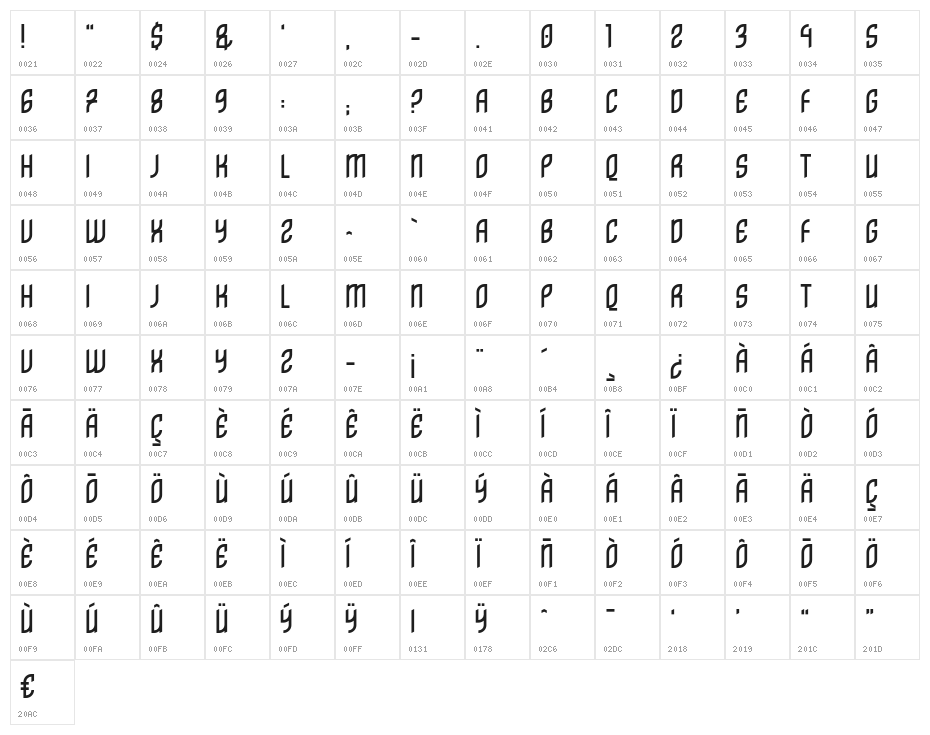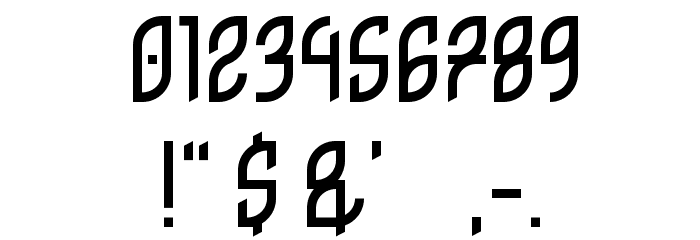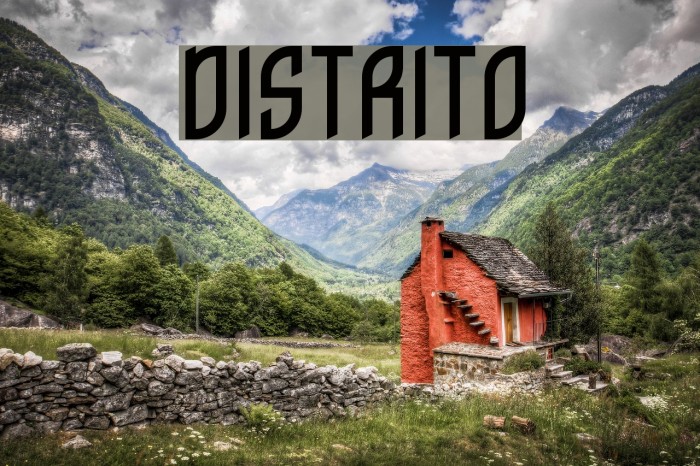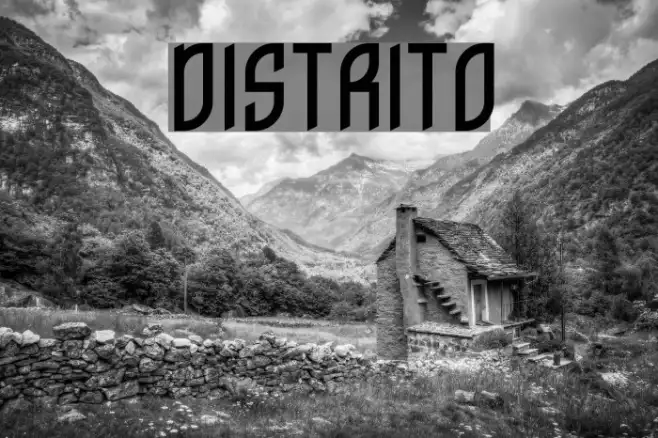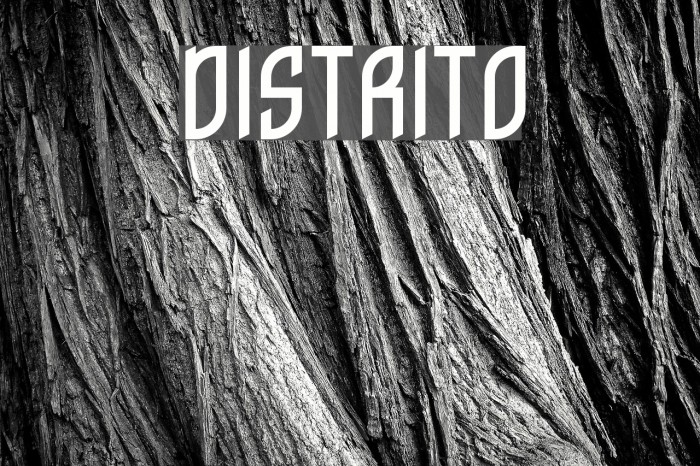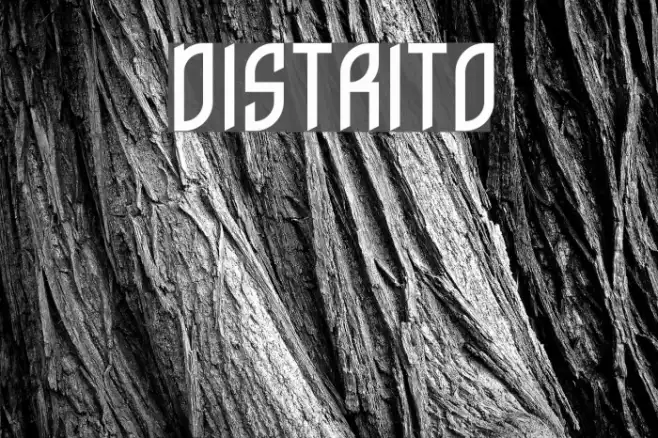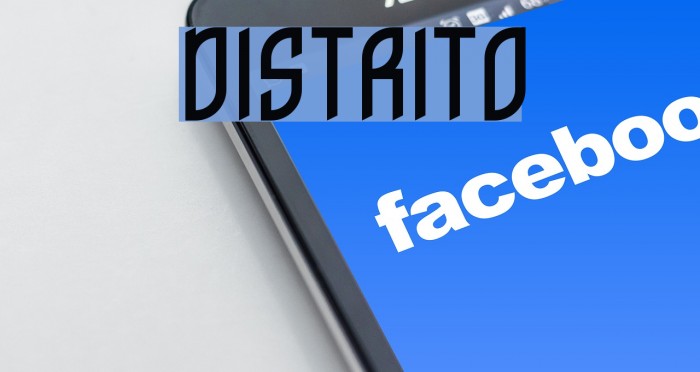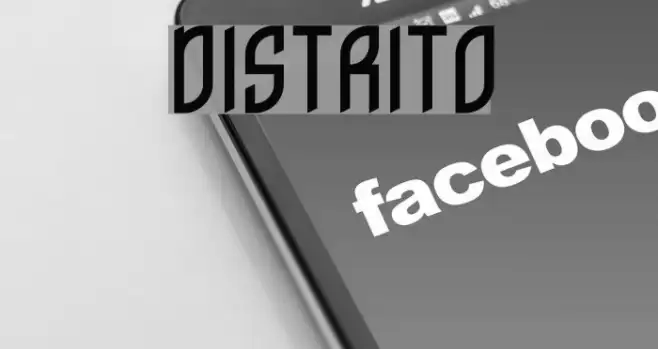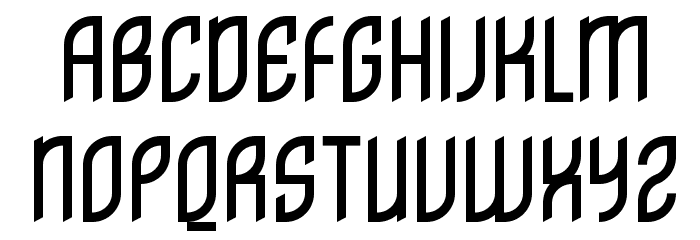
Distrito Font
Distrito Description
This font features a bold and dynamic style with a distinct geometric influence. The characters are tall and narrow, with sharp angles and clean lines that create a sense of movement and energy. The uppercase letters are particularly striking, with a uniform height and consistent stroke width that gives them a cohesive appearance. The lowercase letters maintain the same angular style, ensuring readability while adding a touch of uniqueness. The numerals are equally bold, matching the overall aesthetic of the alphabet. Special characters are designed with the same attention to detail, making them a seamless part of the font family. This font is ideal for projects that require a modern and impactful look.
DISTRITO UPPERCASE
DISTRITO LOWERCASE
DISTRITO OTHER CHARS
| Proposed Projects | Ideal for branding, posters, headlines, and modern design projects. |